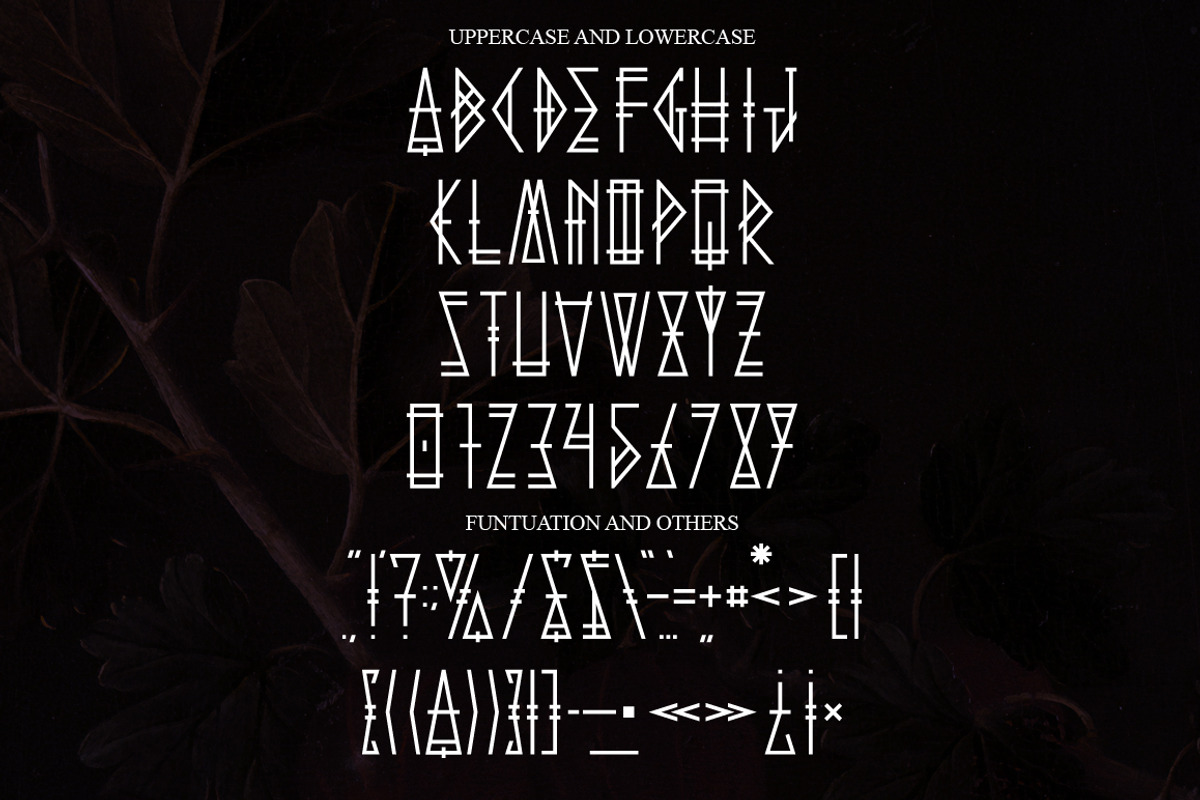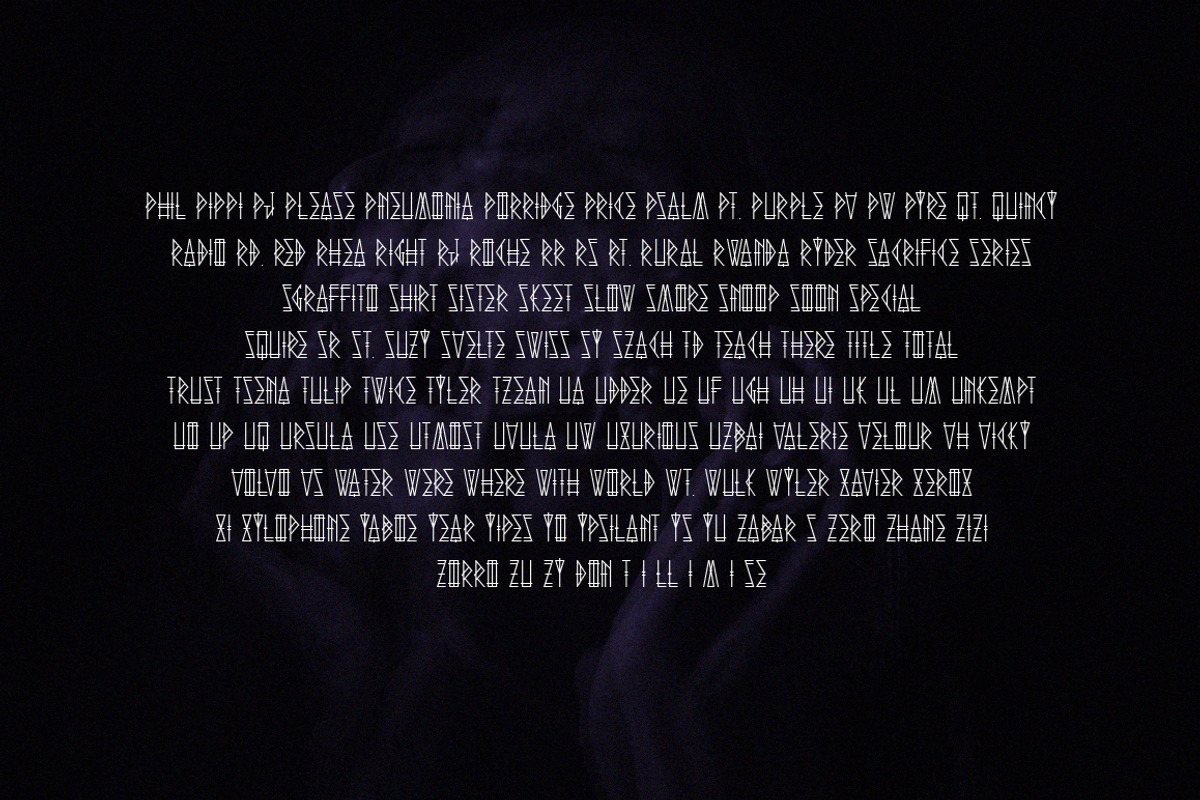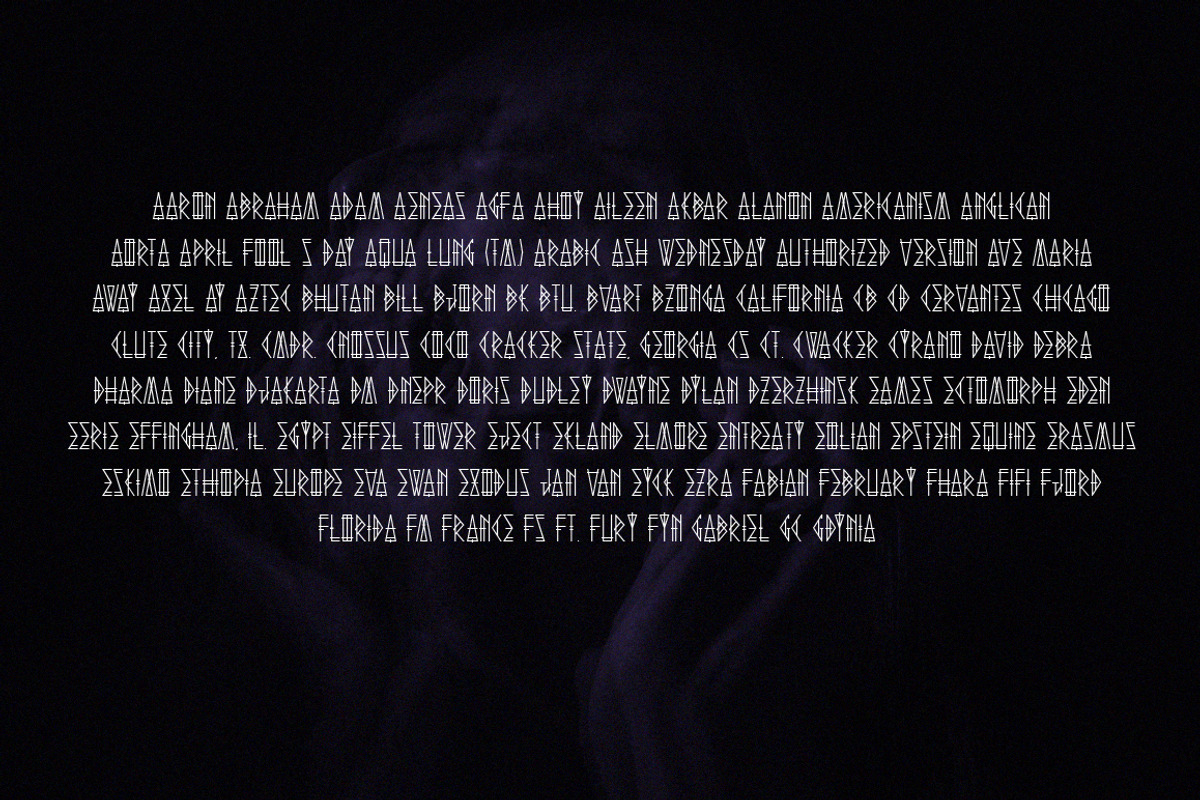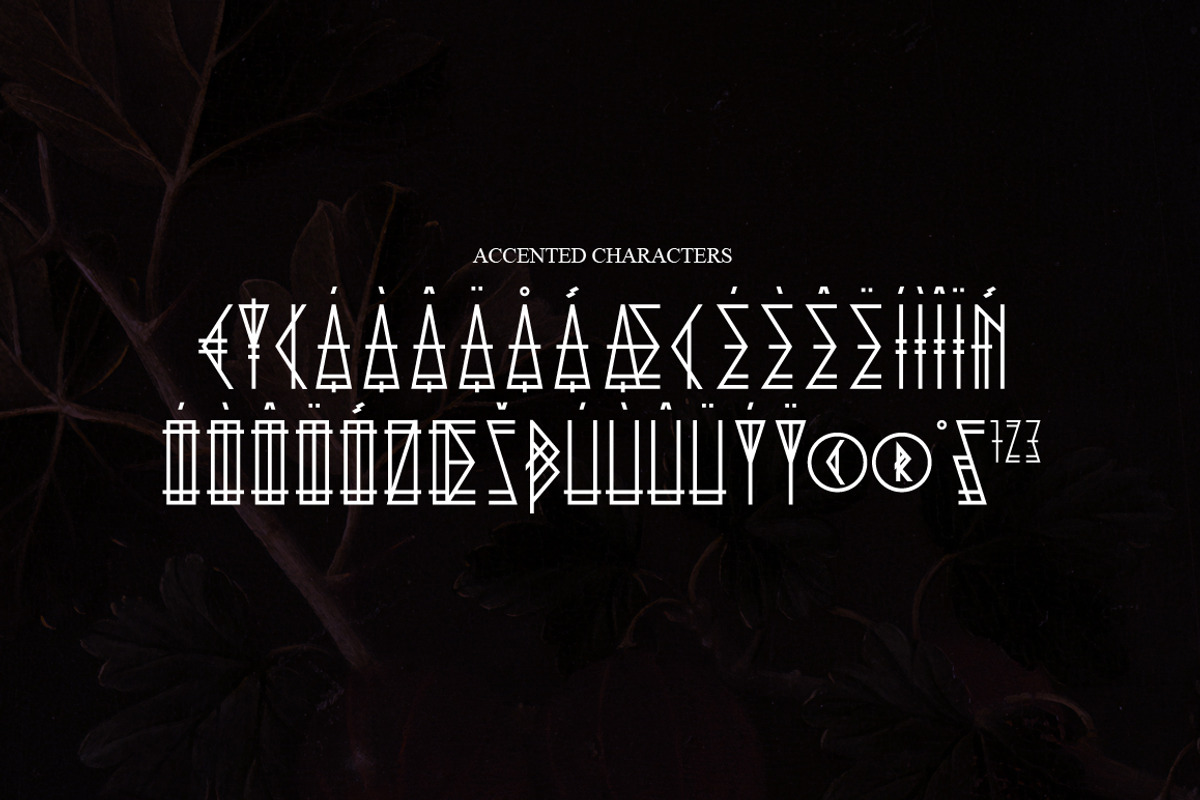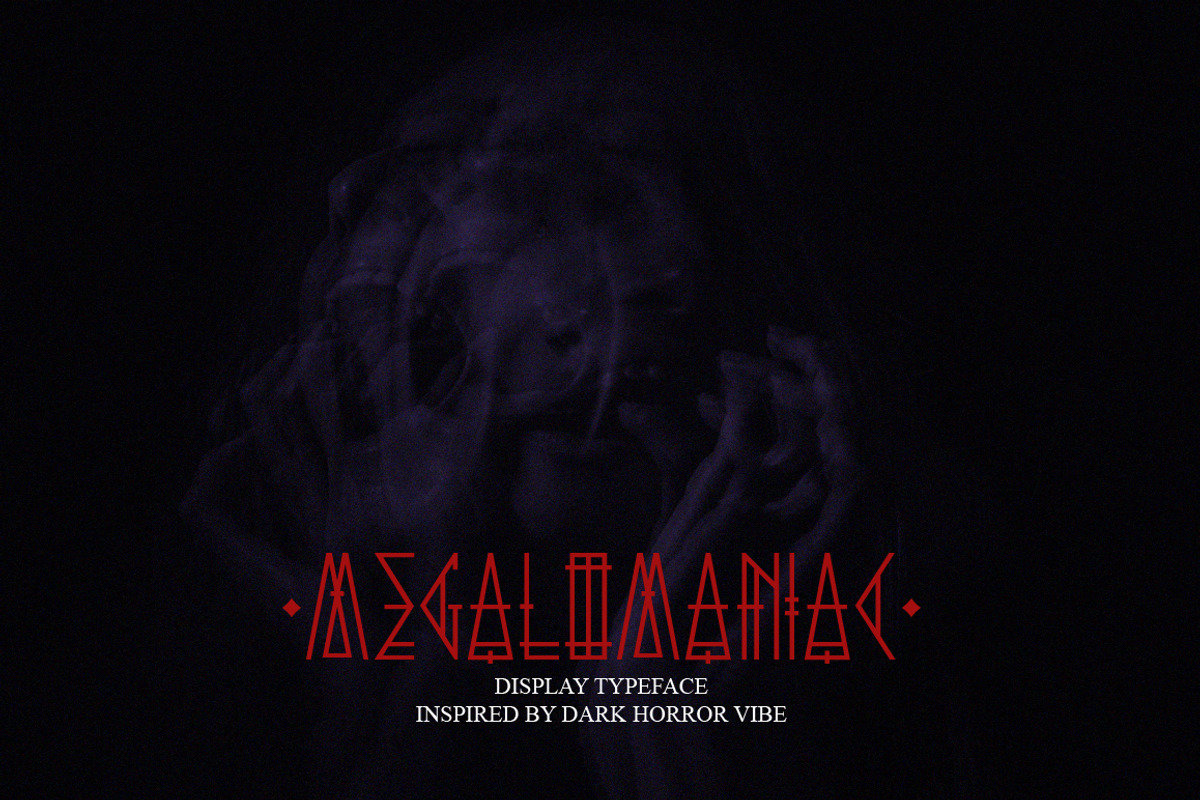
Megalomaniac display font
This Megalomaniac font is inspired by Dark Horror vibe. Megalomaniac font is perfect for badges, branding, labels, apparel, headlines, signage, logo, quote, apparel and other creative applications.